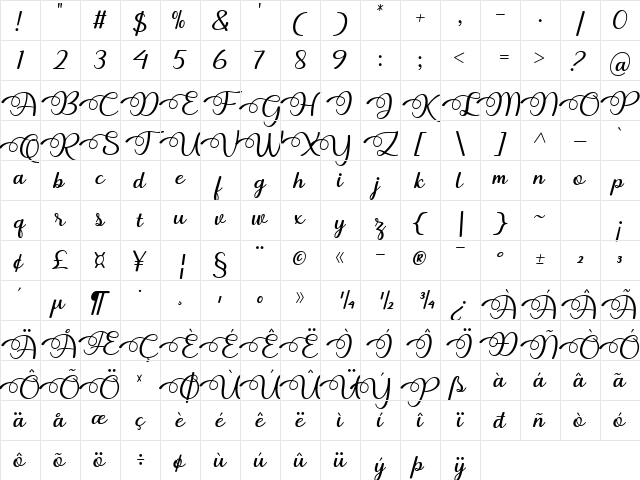
Complete Dhitha Regular glyph index. Displaying only characters natively supported by Dhitha Regular font.
Dhitha is a composed and adaptable typeface that performs quietly and consistently across a wide range of design contexts.